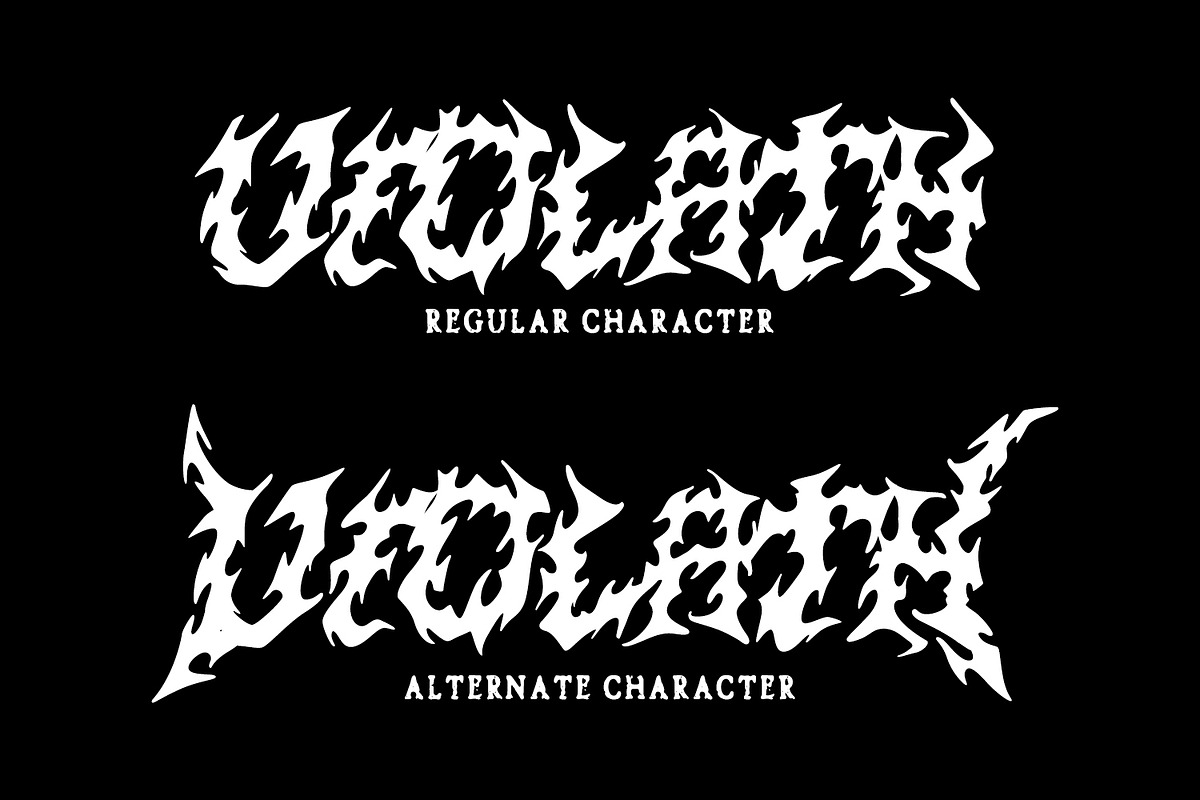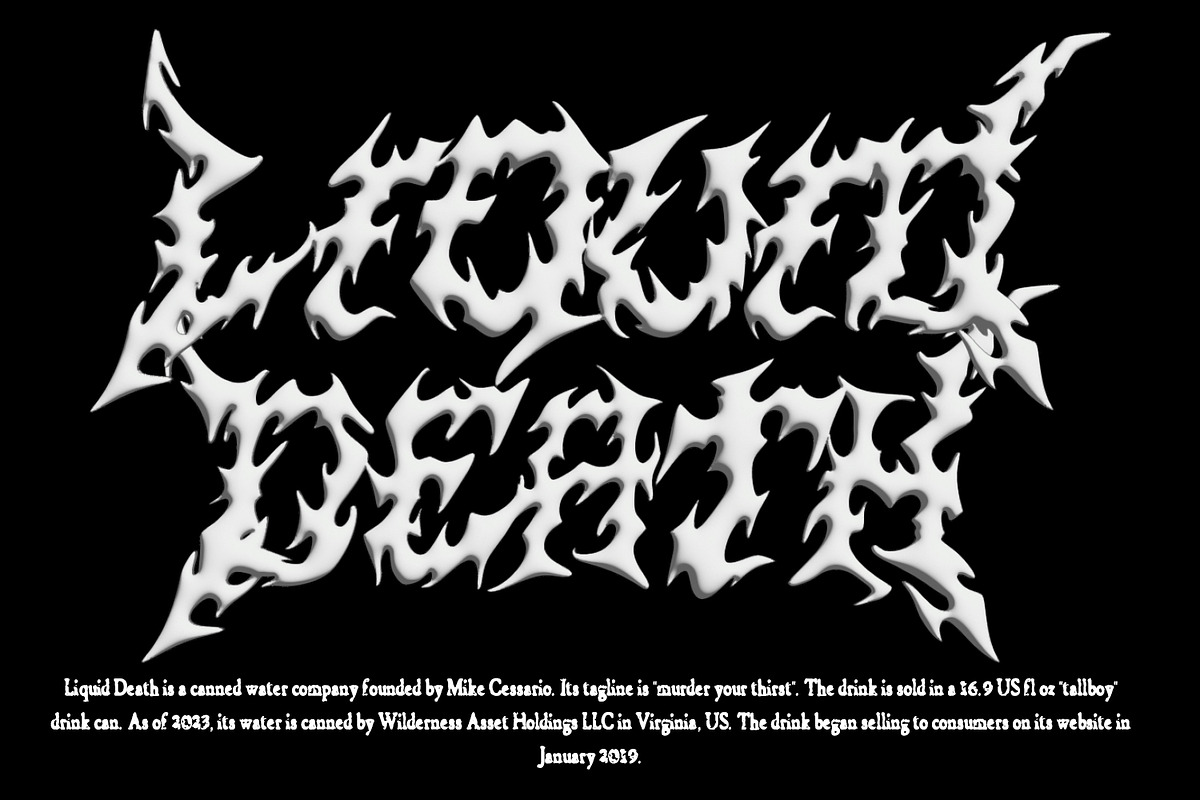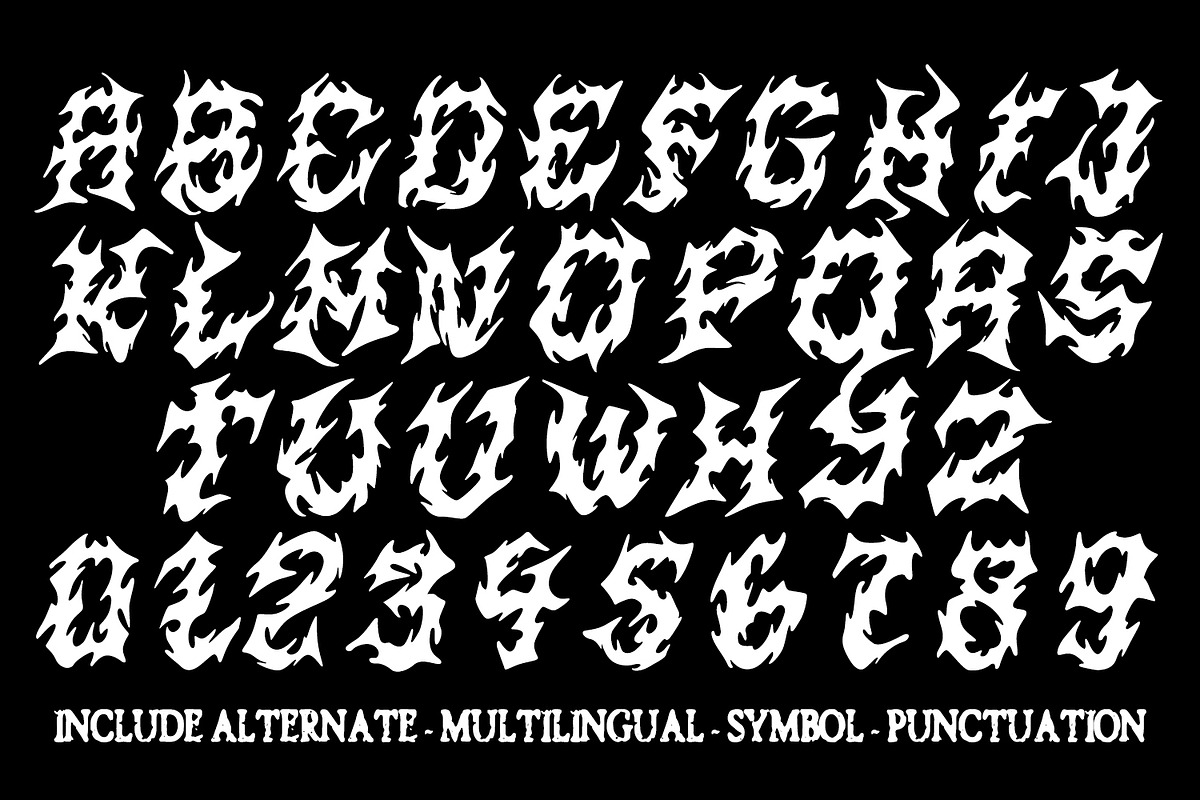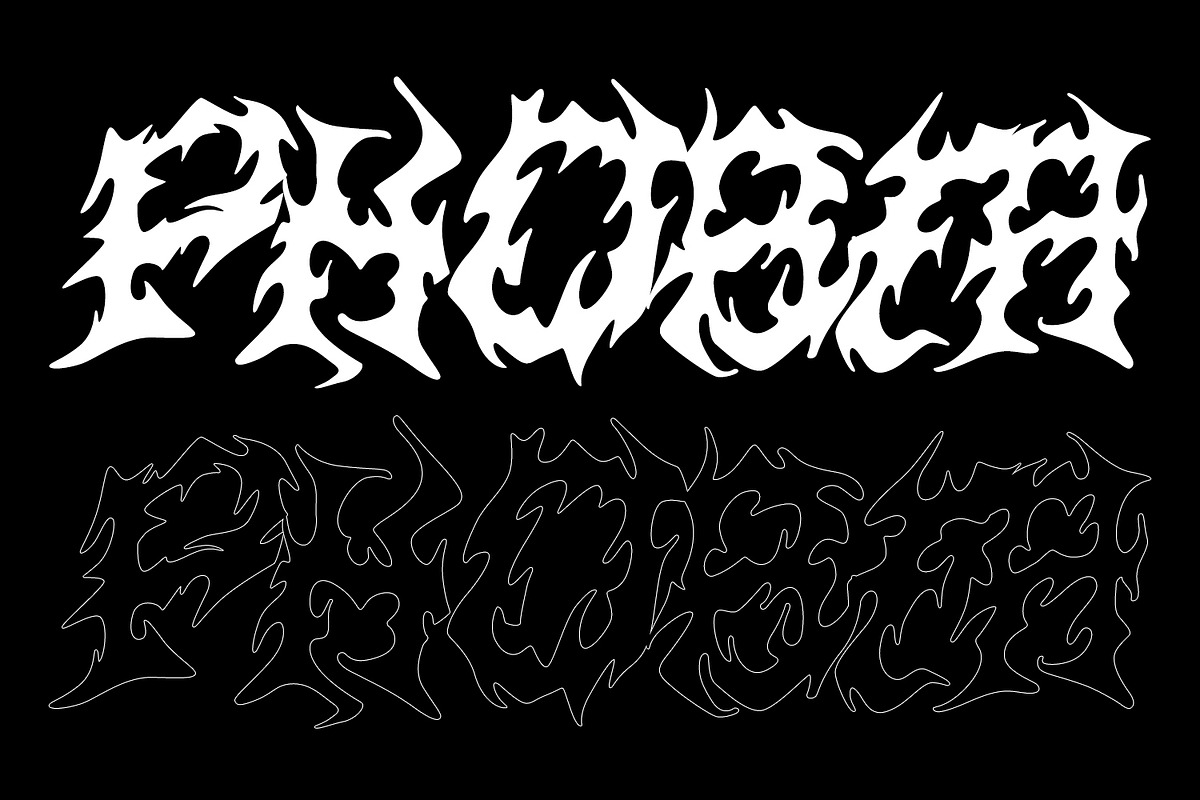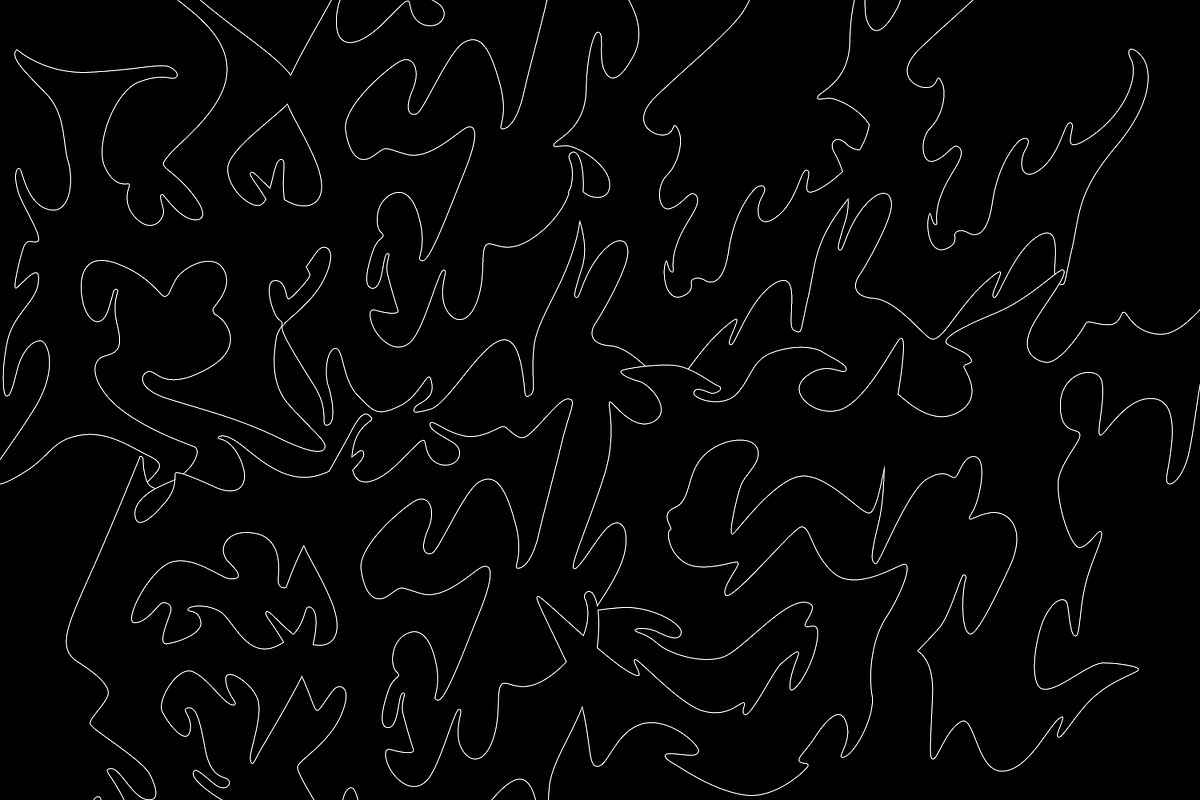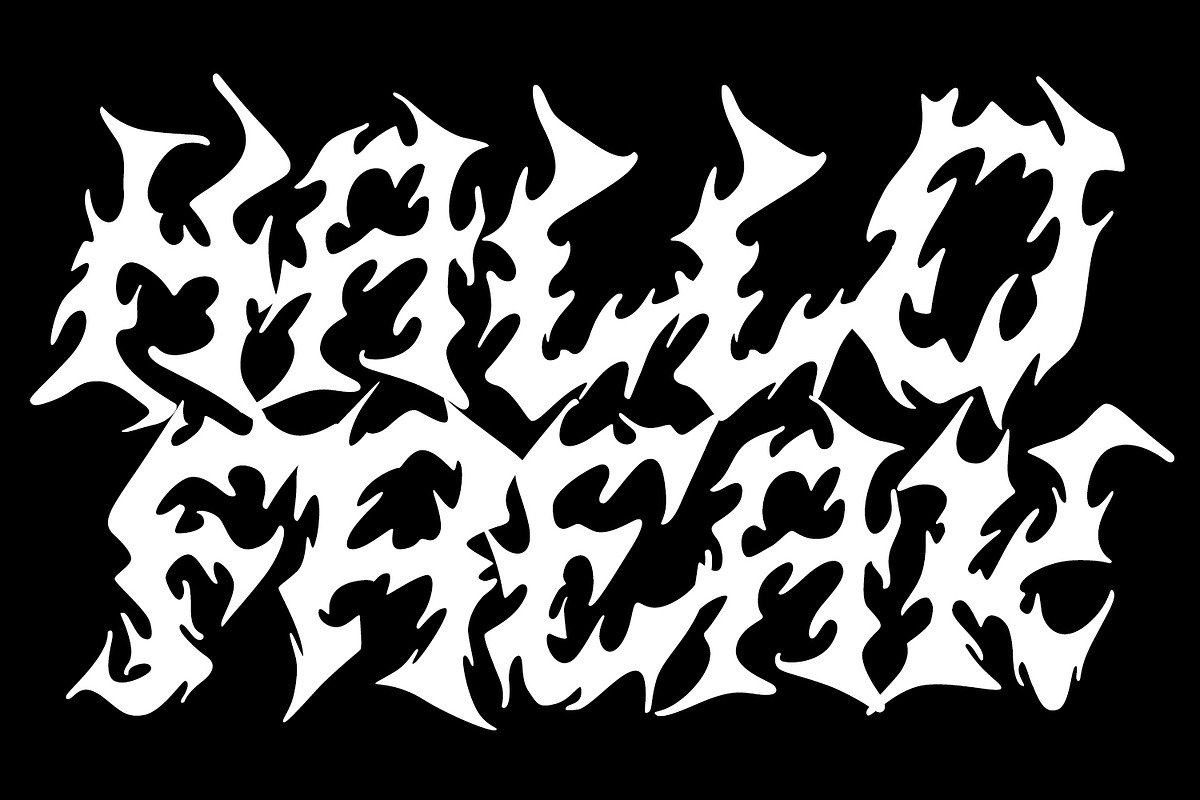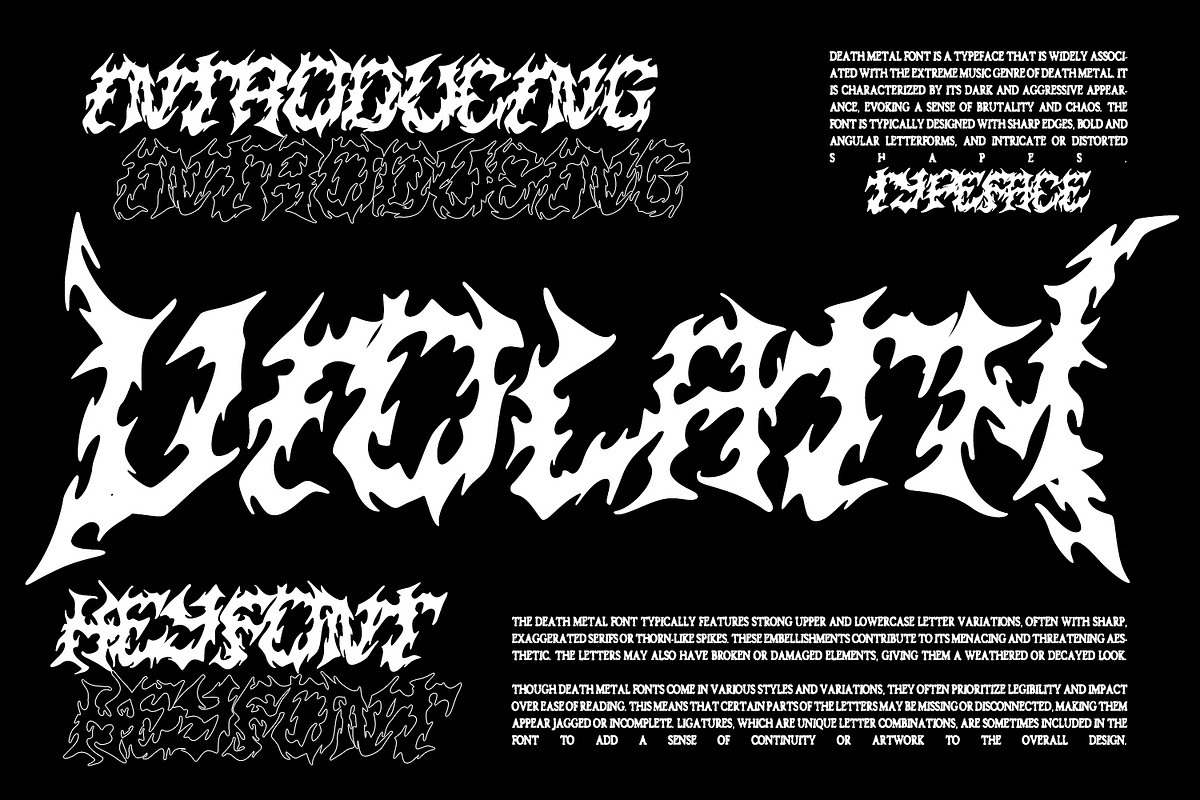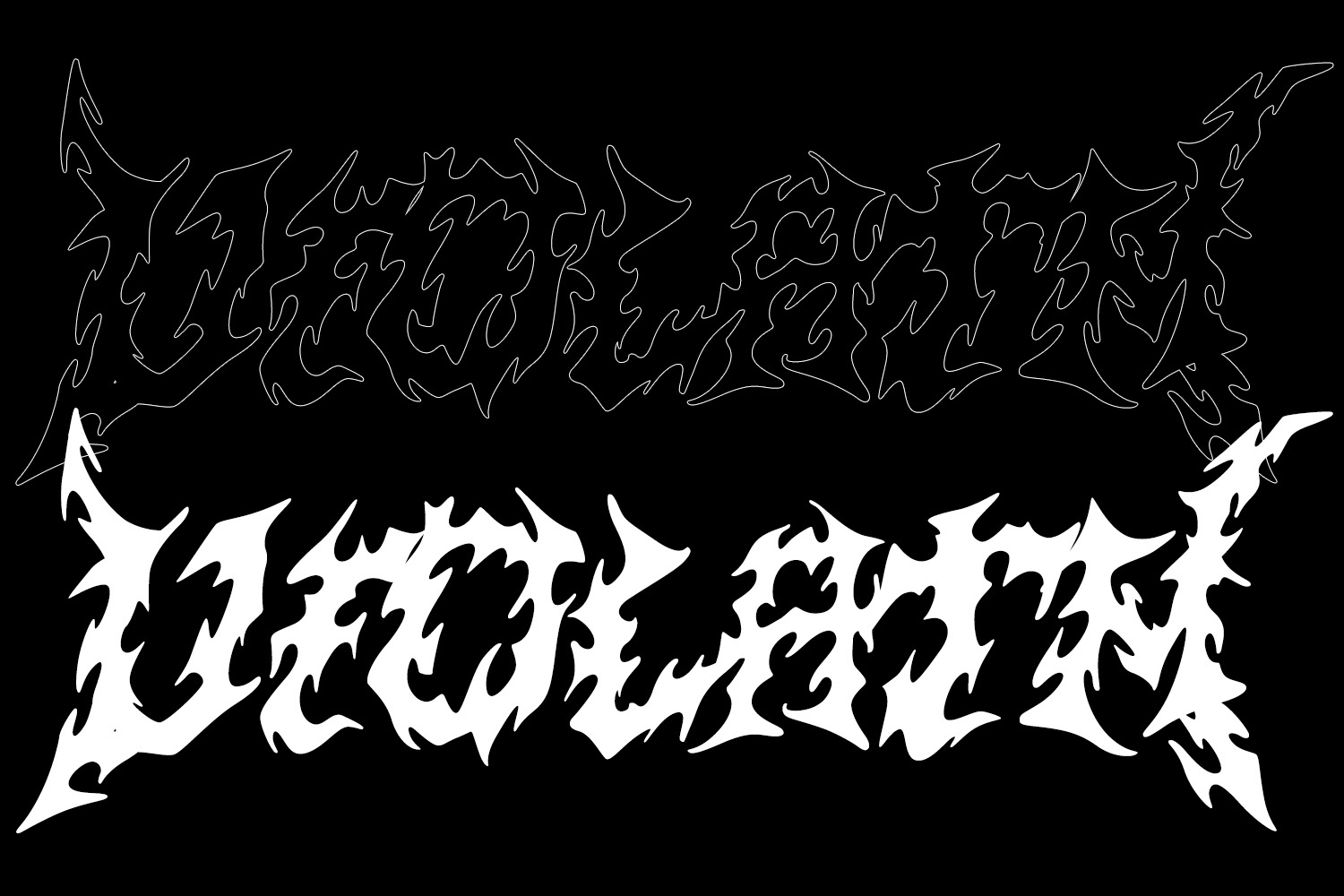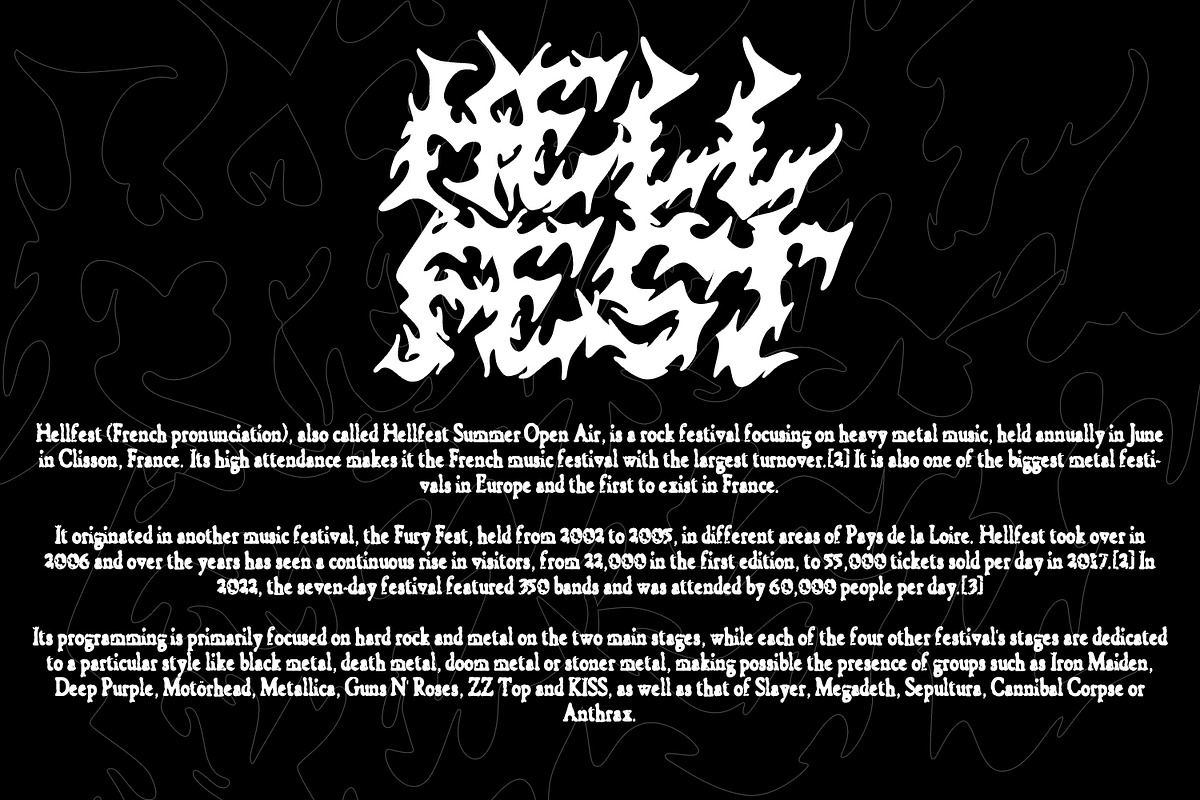
Violath typeface - Bonus Serif Font
Violath is a typeface that is widely associated with the extreme music genre of death metal. It is characterized by its dark and aggressive appearance, evoking a sense of brutality and chaos. The font is typically designed with sharp edges, bold and angular letterforms, and intricate or distorted shapes.
The death metal font typically features strong upper and lowercase letter variations, often with sharp, exaggerated serifs or thorn-like spikes. These embellishments contribute to its menacing and threatening aesthetic. The letters may also have broken or damaged elements, giving them a weathered or decayed look.
Though death metal fonts come in various styles and variations, they often prioritize legibility and impact over ease of reading. This means that certain parts of the letters may be missing or disconnected, making them appear jagged or incomplete. Ligatures, which are unique letter combinations, are sometimes included in the font to add a sense of continuity or artwork to the overall design.
In terms of color, death metal fonts are commonly depicted in monochromatic shades such as black, grey, or dark red to maintain their sinister appearance. The color contrast often enhances the sharpness and intensity of the font, making it more visually striking.
Due to its association with the underground music scene, the death metal font has become an essential element in album covers, band logos, posters, and merchandise. It effectively conveys the aggressive and rebellious spirit of the genre, becoming instantly recognizable to fans and enthusiasts.
Overall, the death metal font is a distinctive and powerful typeface that embodies the intensity and dark atmosphere of the death metal genre. Its bold and menacing appearance leaves a lasting impression, making it synonymous with the music and culture it represents.